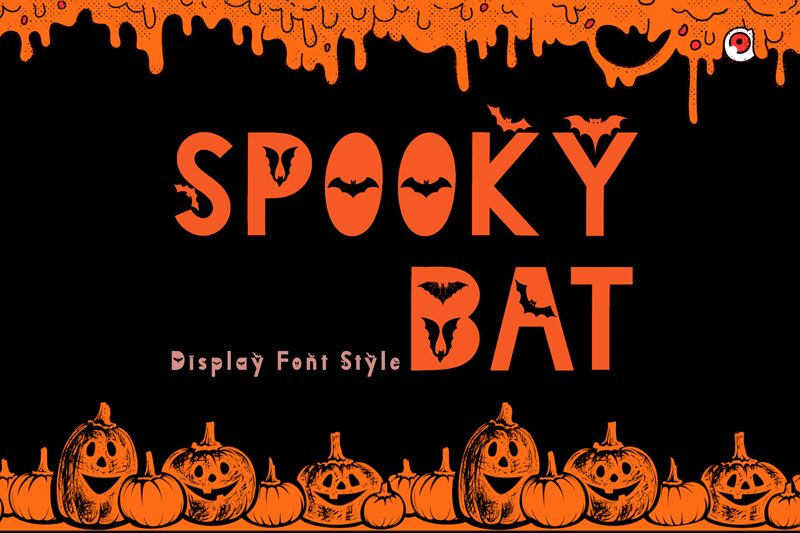
Spooky Bat
Spooky Bat font by Yoga Letter is a free Halloween display font. Bold, chunky letters are punctured with bat silhouettes—some perched, some mid-flight—so every word looks like a moonlit scene. The shapes feel cut from black paper: crisp edges, playful shadows, just the right dose of mischief without losing legibility.
Using Spooky Bat instantly sets a spooky-fun tone for party invitations, trick‑or‑treat posters, haunted house signage, school flyers, social media promos, and candy bag labels. The tight rhythm and high contrast hold up at large sizes and still read clean at mid-range. Pair this free font with a simple, light-weight sans for body copy, and let the bats do the talking.